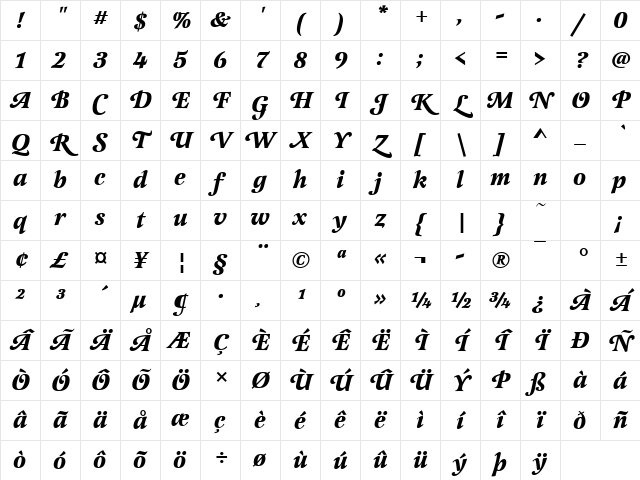
Complete Latienne Becker Swash Alt Bold Italic glyph index. Displaying only characters natively supported by Latienne Becker Swash Alt Bold Italic font.
Latienne Becker Swash Alt flows with the natural rhythm of handwritten lettering, making it ideal for designs that call for warmth and personal expression. Its bold stroke weight gives it real presence on the page.
Font Pairing: Combine Latienne Becker Swash Alt with a simple geometric sans for maximum contrast - the tension between flowing curves and clean structure is a classic typographic pairing.
Pro Tip: Use Latienne Becker Swash Alt for short runs of text - names, titles, or taglines. Extended body copy in script faces tires the eye quickly.